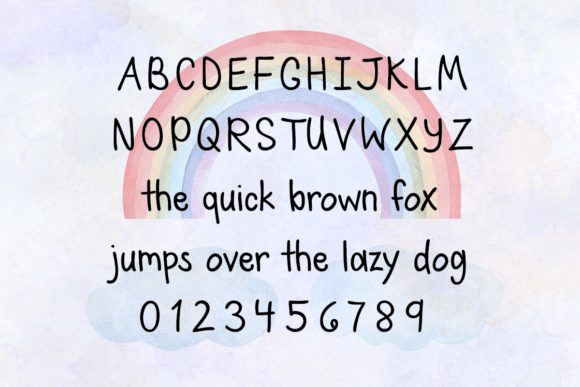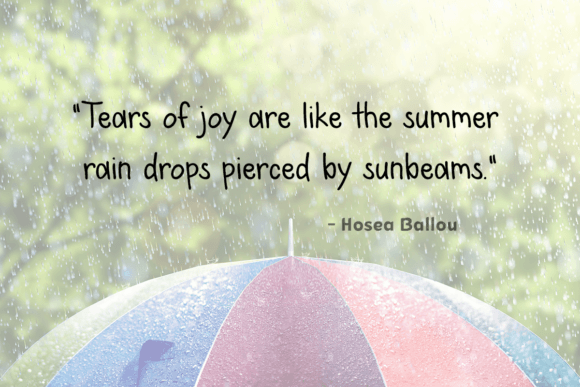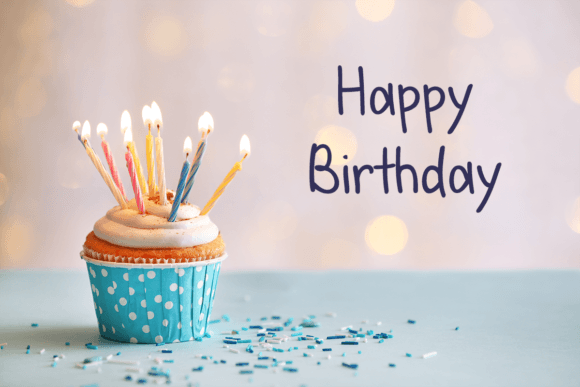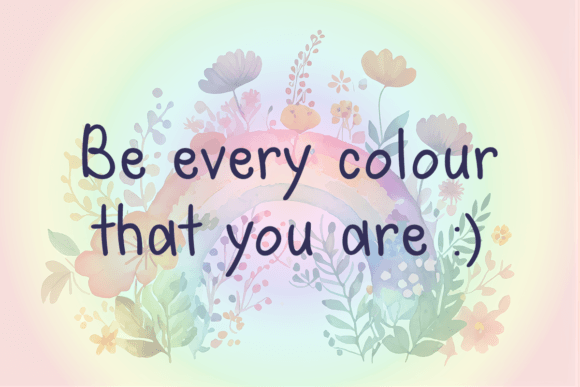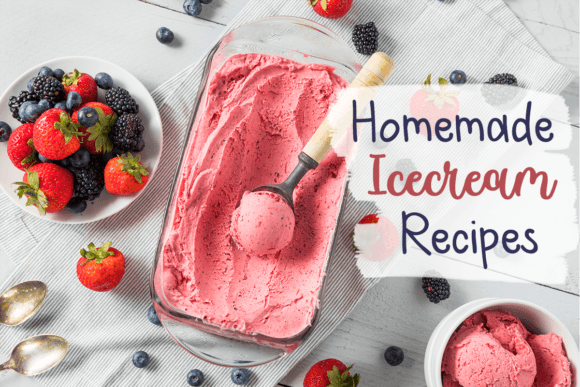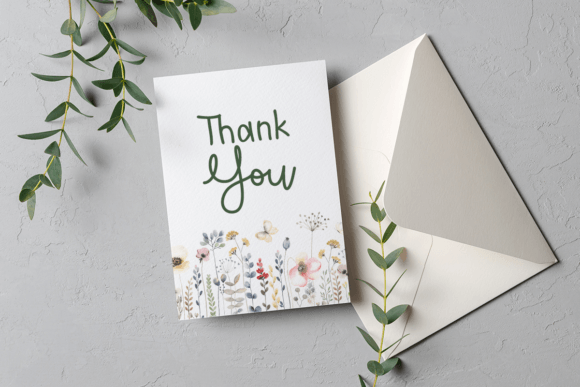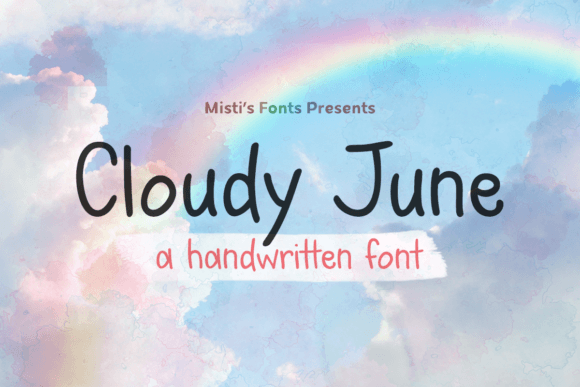
Introducing Cloudy June: The Perfect Handwritten Font for Your Designs
Are you looking for a font that adds a personal touch to your designs? Look no further than Cloudy June, a beautiful handwritten font that brings a sense of whimsy and charm to any project. With its elegant curves and flowing lines, Cloudy June is the perfect choice for designers and crafters who want to create unique and authentic-looking work.
The Characteristics of Cloudy June
Cloudy June is a carefully crafted font that mimics the look of handwriting. The letters are designed to look like they were written by hand, with subtle imperfections and variations that give your work a personal touch. The font features elegant curves and flowing lines that create a sense of movement and fluidity, making it perfect for designs that require a touch of sophistication and whimsy.
Versatility of Cloudy June
One of the best things about Cloudy June is its versatility. This font can be used in a variety of contexts, from invitations and greeting cards to social media graphics and blog posts. Whether you’re designing for print or digital, Cloudy June is the perfect choice for adding a personal touch to your work. The font is also highly legible, making it suitable for use in body text as well as headings and titles.
Why Choose Cloudy June?
So why choose Cloudy June over other fonts? Here are just a few reasons why this font stands out:
- Unique and Authentic Look: Cloudy June has a unique and authentic look that sets it apart from other fonts. The hand-crafted letters give your work a personal touch that’s hard to replicate with other fonts.
- Elegant and Whimsical: The elegant curves and flowing lines of Cloudy June create a sense of whimsy and charm that’s perfect for designs that require a touch of sophistication.
- Highly Versatile: Cloudy June can be used in a variety of contexts, from print to digital, and is suitable for use in body text as well as headings and titles.
- Easy to Read: Despite its elegant and cursive look, Cloudy June is highly legible and easy to read, making it perfect for use in a variety of designs.
How to Use Cloudy June in Your Designs
Using Cloudy June in your designs is easy. Here are a few tips to get you started:
- Pair it with Other Fonts: Cloudy June looks great when paired with other fonts. Try pairing it with a bold sans-serif font for a striking contrast.
- Use it for Headings and Titles: Cloudy June is perfect for use in headings and titles, where its elegant and cursive look can really shine.
- Add it to Your Social Media Graphics: Cloudy June is a great choice for social media graphics, where its whimsical and charming look can help your content stand out.
- Use it for Invitations and Greeting Cards: Cloudy June is also perfect for use in invitations and greeting cards, where its elegant and personal look can add a touch of sophistication.
In conclusion, Cloudy June is a beautiful handwritten font that’s perfect for adding a personal touch to your designs. With its elegant curves and flowing lines, it brings a sense of whimsy and charm to any project. Whether you’re a designer or crafter, Cloudy June is a versatile and highly legible font that’s sure to elevate your work and make it stand out from the crowd.